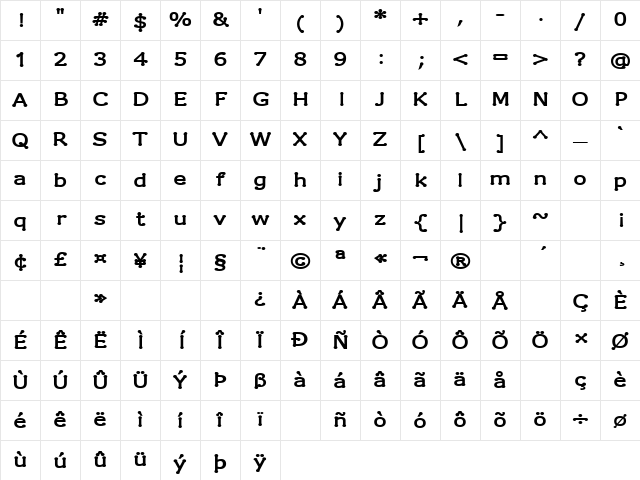
Drummon SemiBold Free Font
Drummon SemiBold
Style: SemiBold
Drummon Family
Complete Drummon SemiBold glyph index. Displaying only characters natively supported by Drummon SemiBold font.
Design Context for Drummon
Drummon is a composed and adaptable typeface that performs quietly and consistently across a wide range of design contexts. Its bold stroke weight gives it real presence on the page.